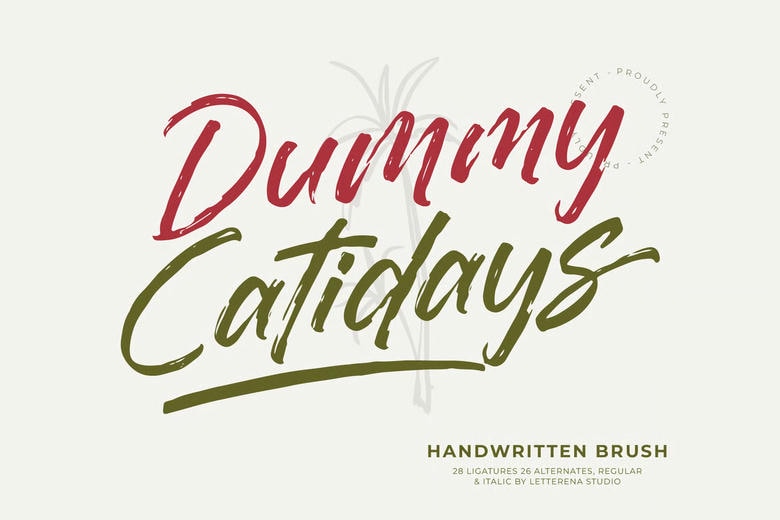
Dummy Catidays Font
Dummy Catidays is a playful handwritten brush typeface that is used to create expressive, casual, and modern branding. Its handwritten texture, dynamic motion, and natural flow are ideal in creative work in posters, packaging, social media graphics, merchandise, and branding lifestyle.
Having a complete range of ligatures, substitutes, regular and italic styles, this font adds spontaneity and personality to any design and a touch of handmade craftsmanship.
Dummy Catidays Handwritten Brush Font